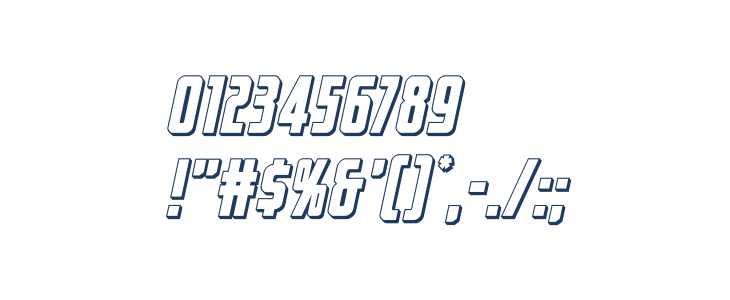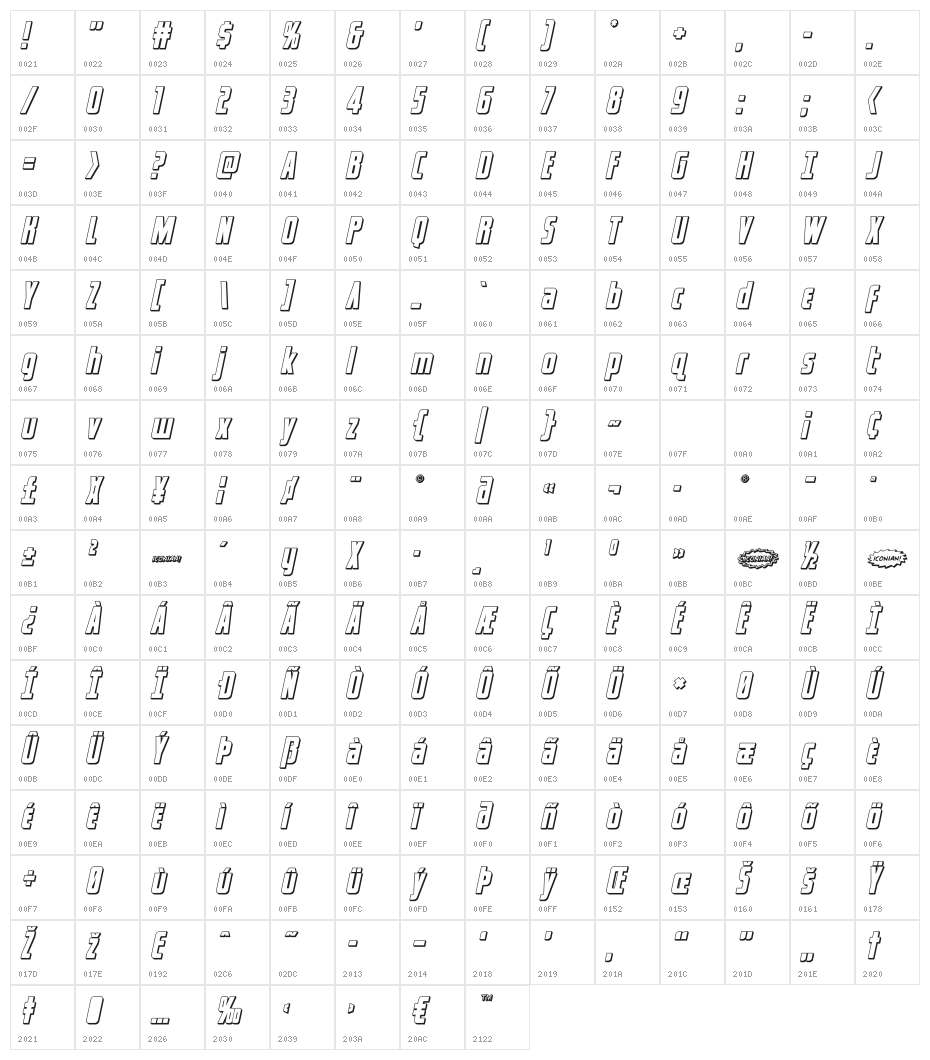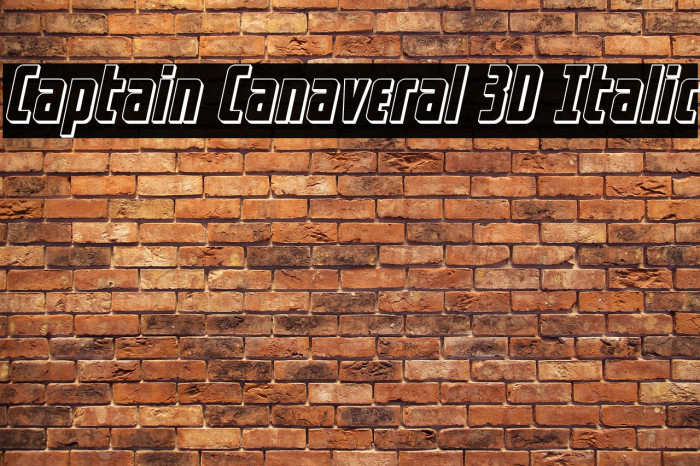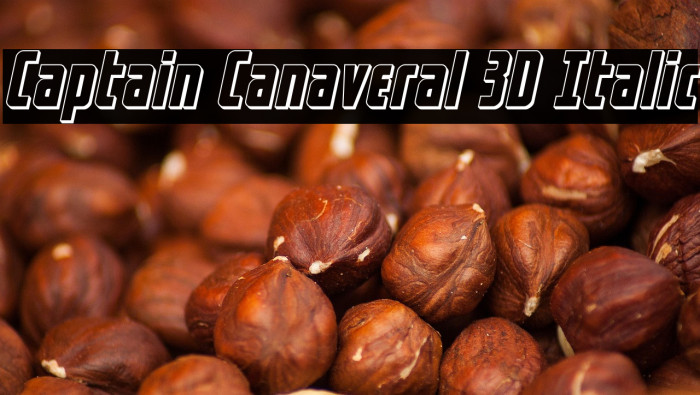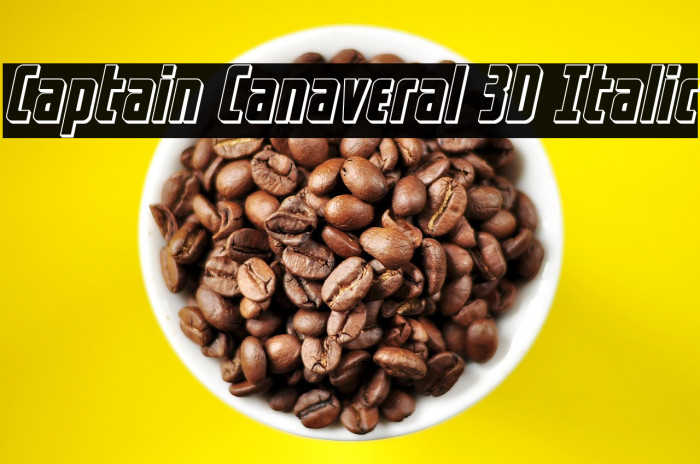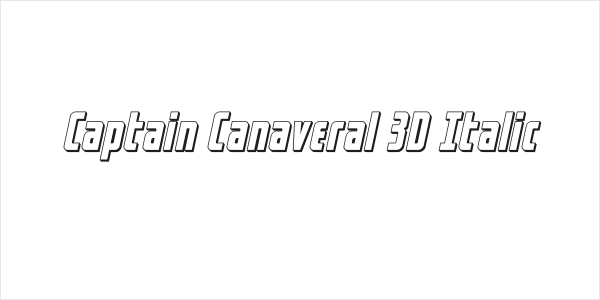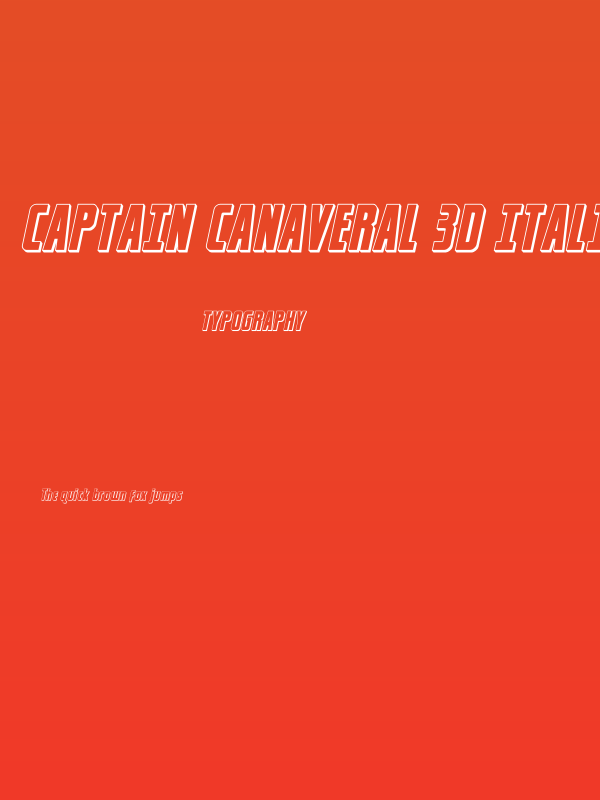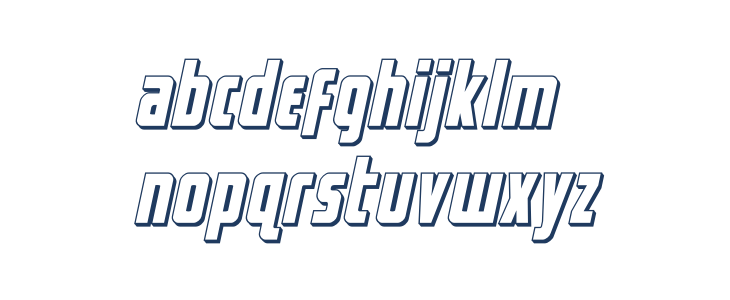
Captain Canaveral 3D Italic Font
Captain Canaveral 3D Italic Description
This font features a bold, three-dimensional design with a distinct italic slant, giving it a dynamic and futuristic appearance. The characters are outlined, creating a sense of depth and movement. The uppercase and lowercase letters maintain a consistent style, with sharp angles and clean lines that enhance readability while adding a modern edge. The numerals and special characters are designed to match the overall aesthetic, ensuring uniformity across all text elements. This font's unique style makes it stand out, making it suitable for projects that require a bold and eye-catching typeface.